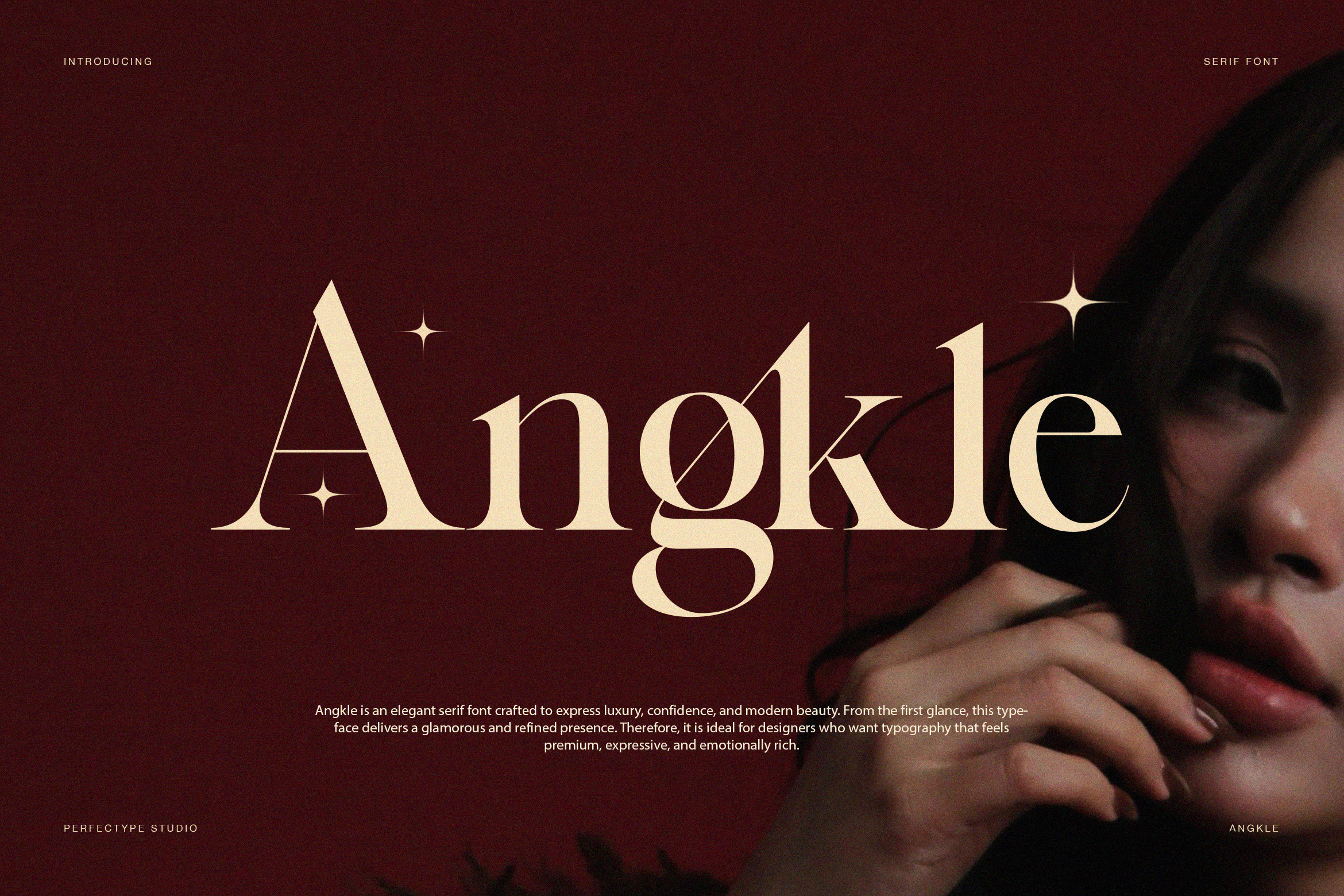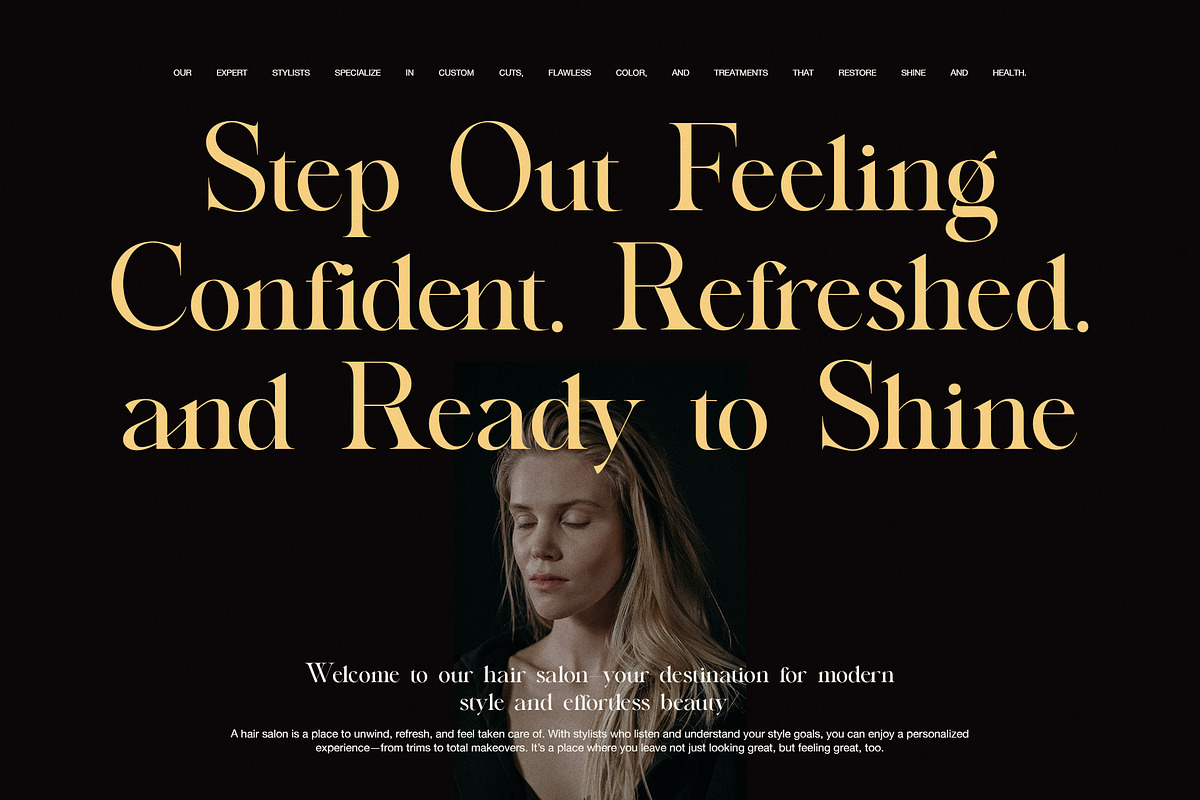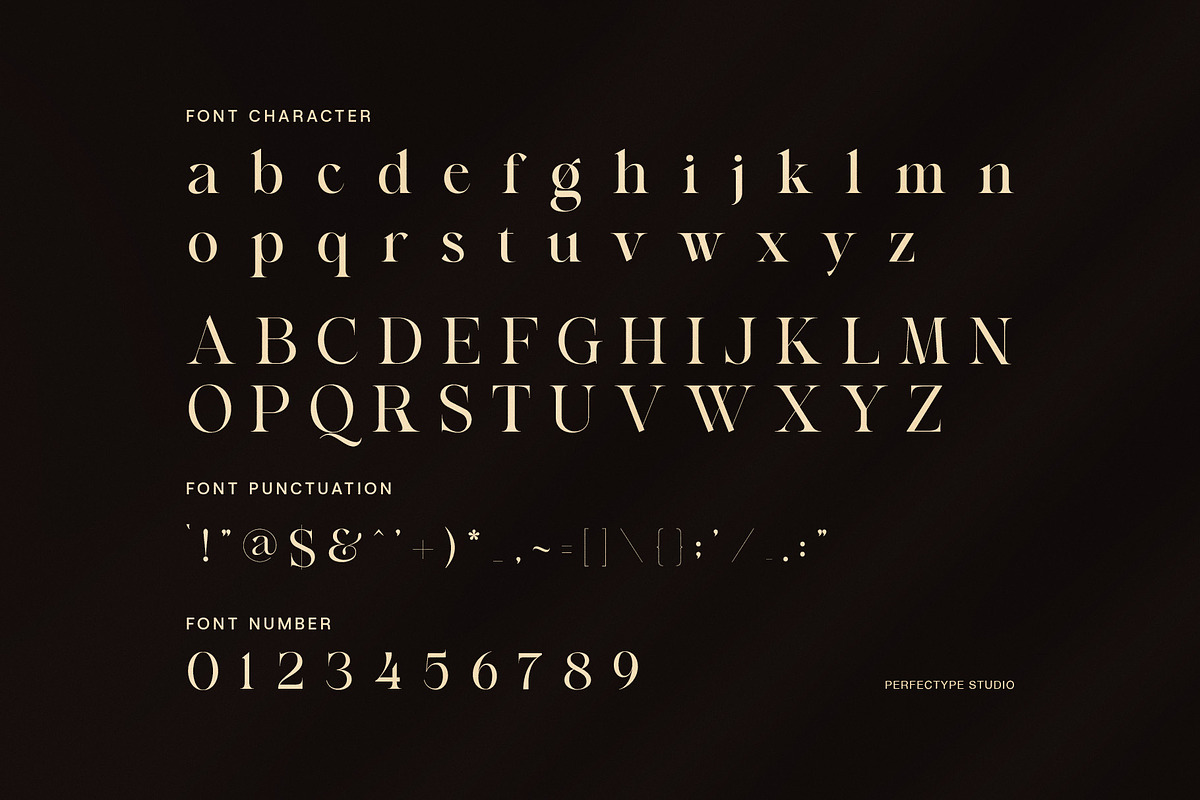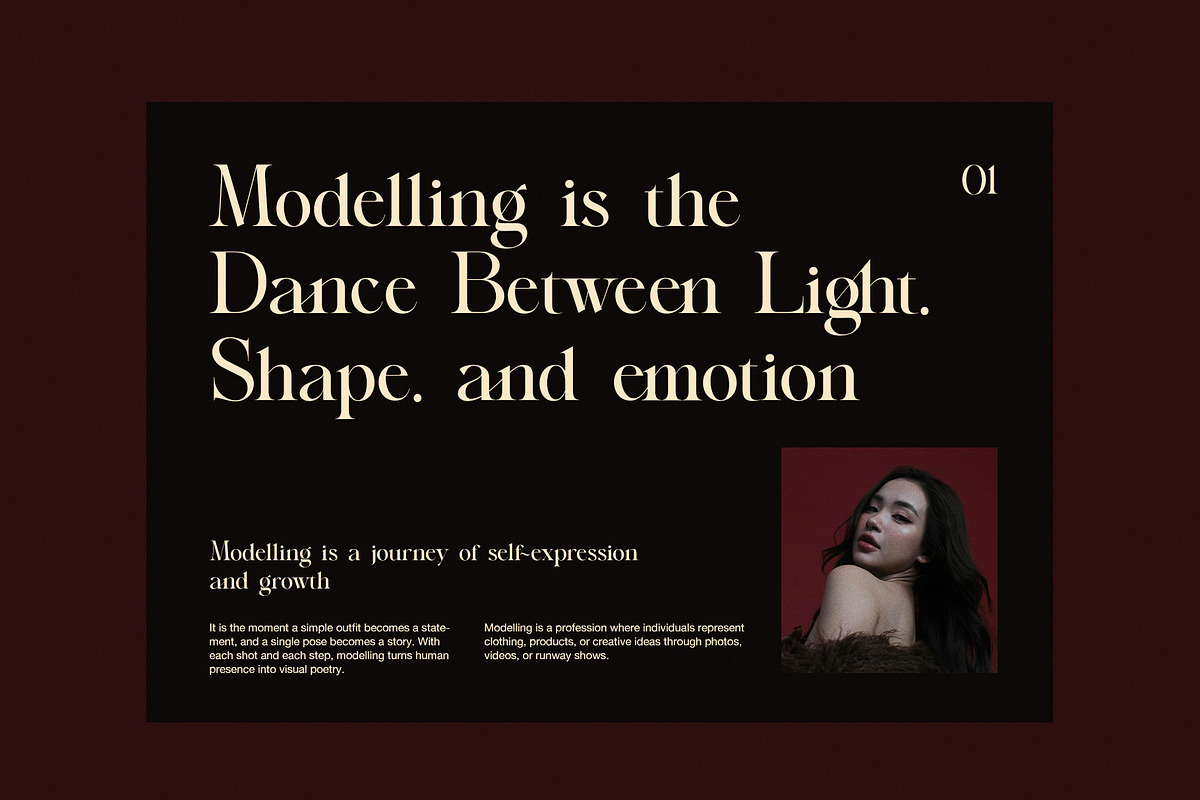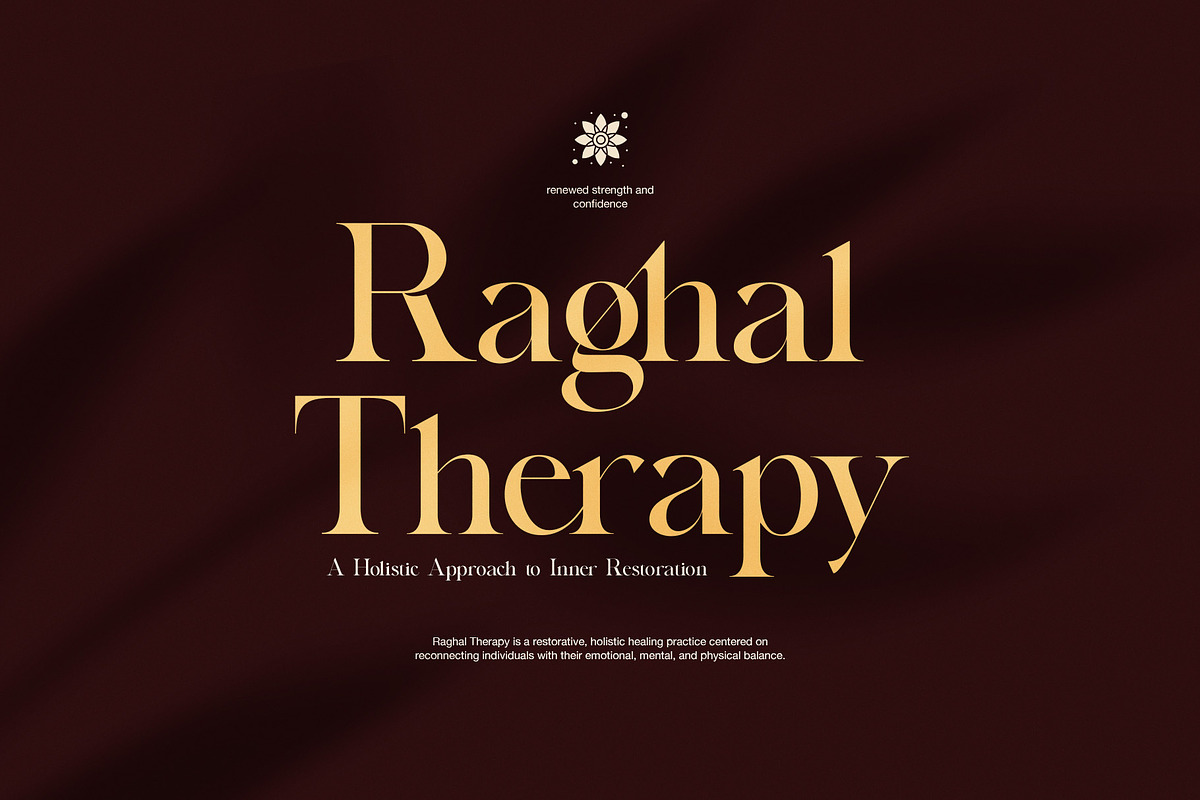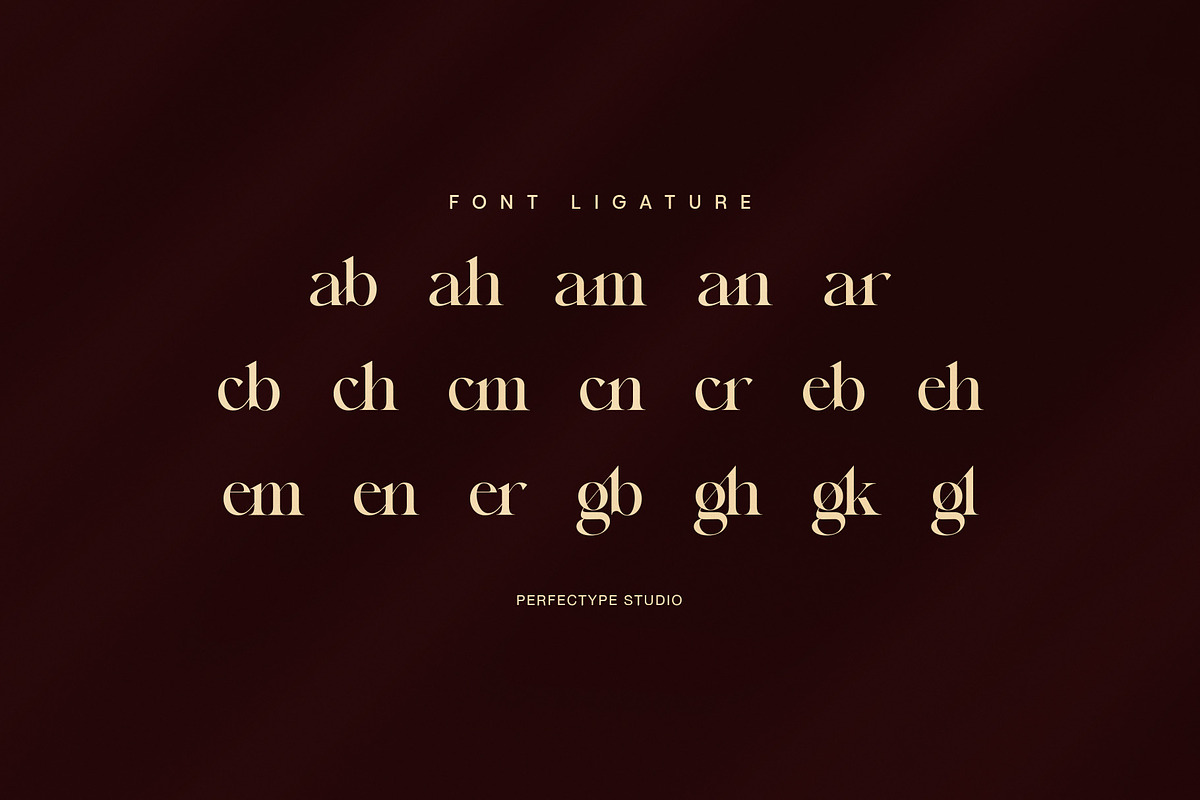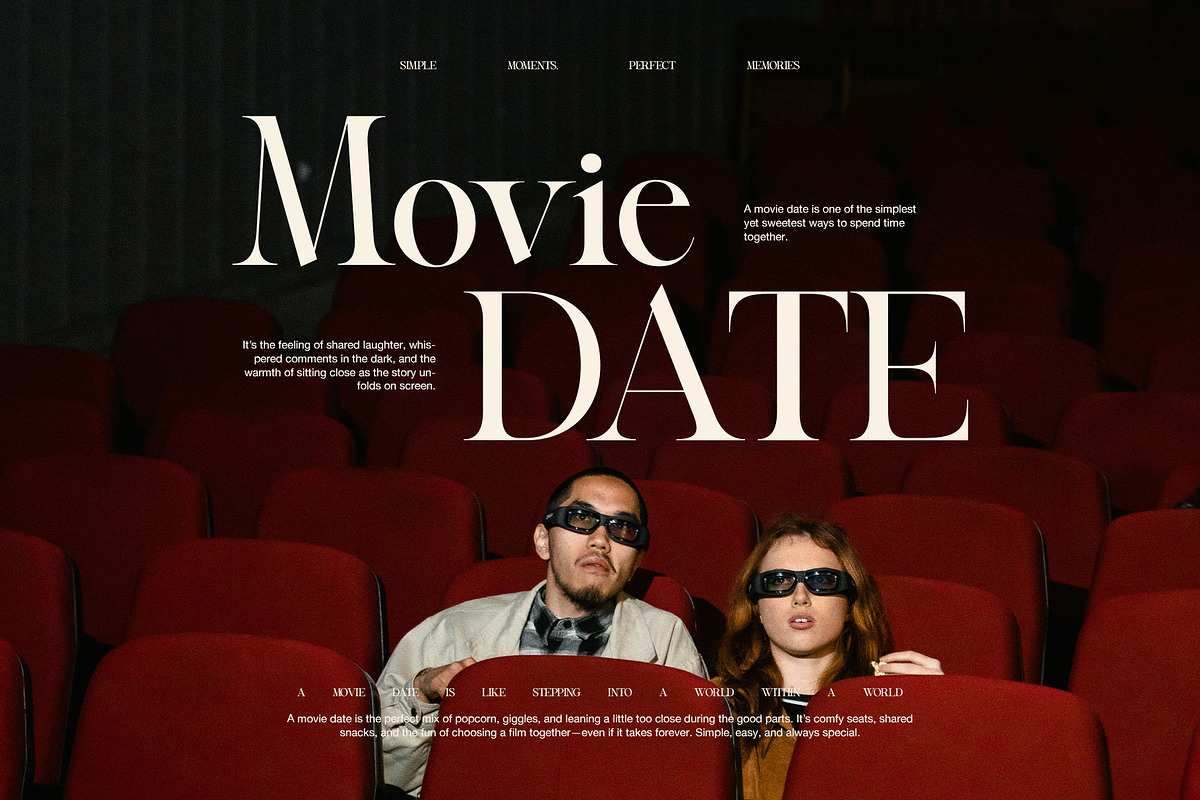
Angkle Elegant Serif Font
Angkle is an elegant serif font crafted to express luxury, confidence, and modern beauty. From the first glance, this typeface delivers a glamorous and refined presence. Therefore, it is ideal for designers who want typography that feels premium, expressive, and emotionally rich.
Moreover, Angkle blends classic serif foundations with smooth curves and balanced contrast. As a result, each letterform feels graceful yet powerful. In addition, the font features stylish ligatures that create seamless connections between characters. Because of this, words flow naturally and look visually polished in both large headlines and refined layouts.
This luxury serif font was designed with beauty and lifestyle branding in mind. Consequently, it fits perfectly in fashion editorials, cosmetic brands, wellness studios, high-end salons, and inspirational campaigns. Furthermore, its soft curves and elegant proportions enhance storytelling, making designs feel warm, confident, and sophisticated.
Angkle supports full uppercase and lowercase characters with consistent structure. Meanwhile, its punctuation and numerals follow the same refined aesthetic. Therefore, designers can create complete visual systems using one cohesive font. Additionally, the ligatures add a handcrafted feel that elevates logos, quotes, and brand names.
Because clarity remains essential, Angkle avoids excessive decoration. Instead, it balances elegance with readability. As a result, the font performs beautifully across digital and print formats. Likewise, it adapts seamlessly to posters, websites, packaging, social media visuals, and editorial spreads.
Key Features & Benefits
Elegant luxury serif design with glamorous character
Smooth ligatures for refined typography flow
Perfect for beauty, fashion, and wellness branding
Strong readability for print and digital use
Ideal for editorials, salons, campaigns, and quotes
Ultimately, Angkle is more than just a serif font. Instead, it is a visual statement that communicates elegance, emotion, and confidence. If you are looking for a luxury serif font that feels modern, stylish, and expressive, Angkle is the perfect choice.